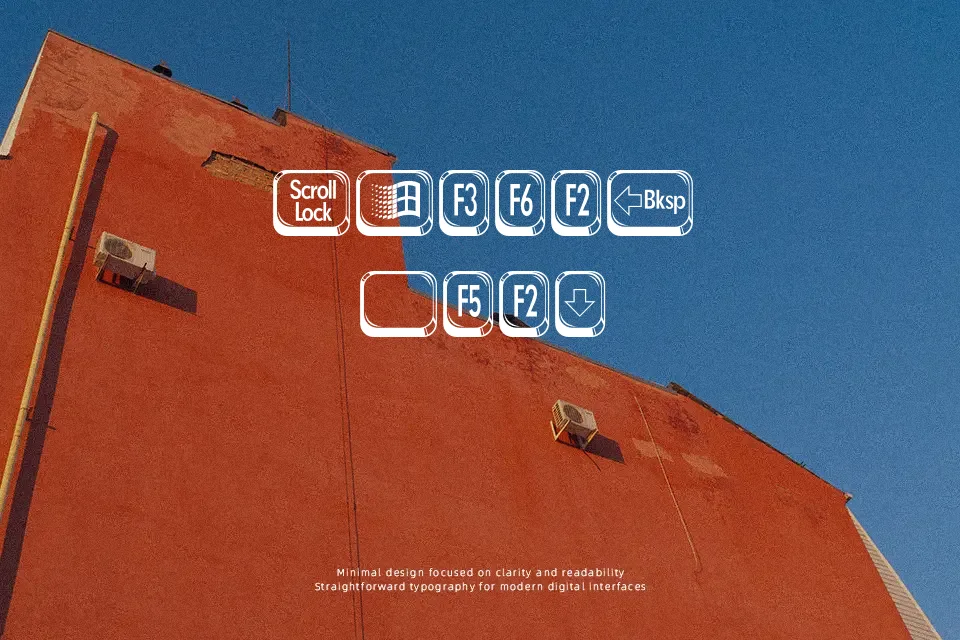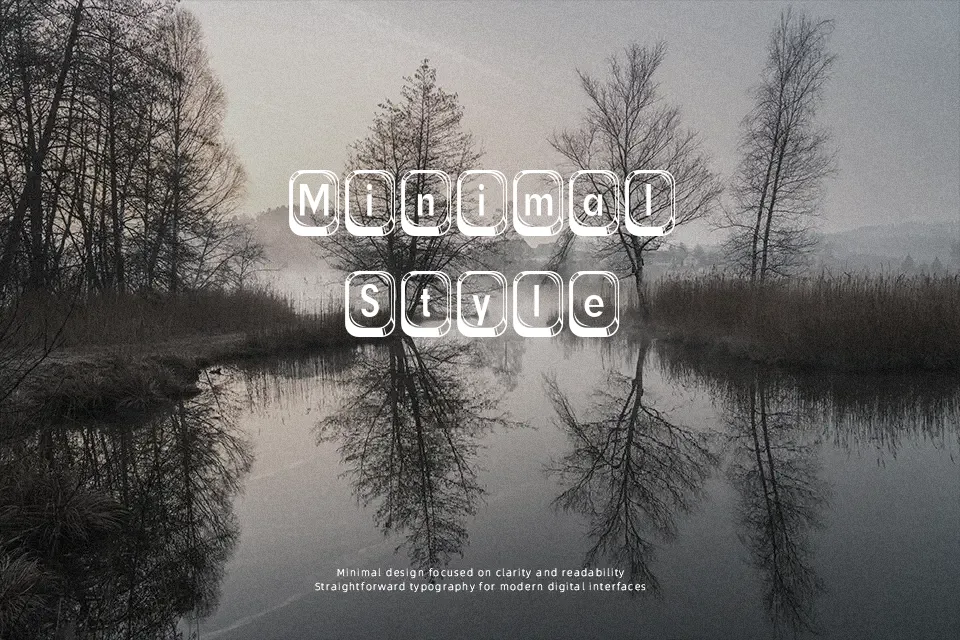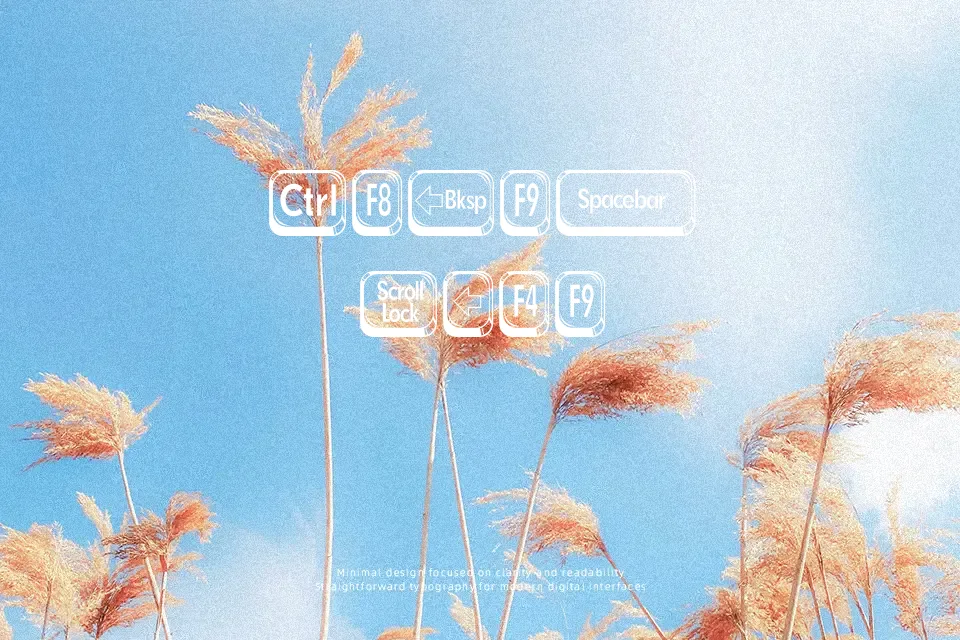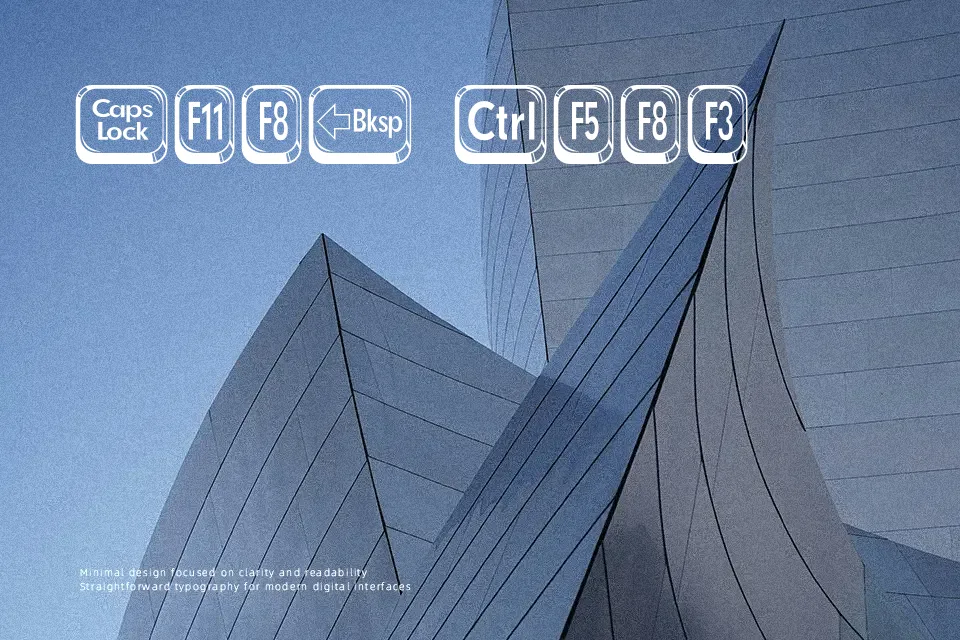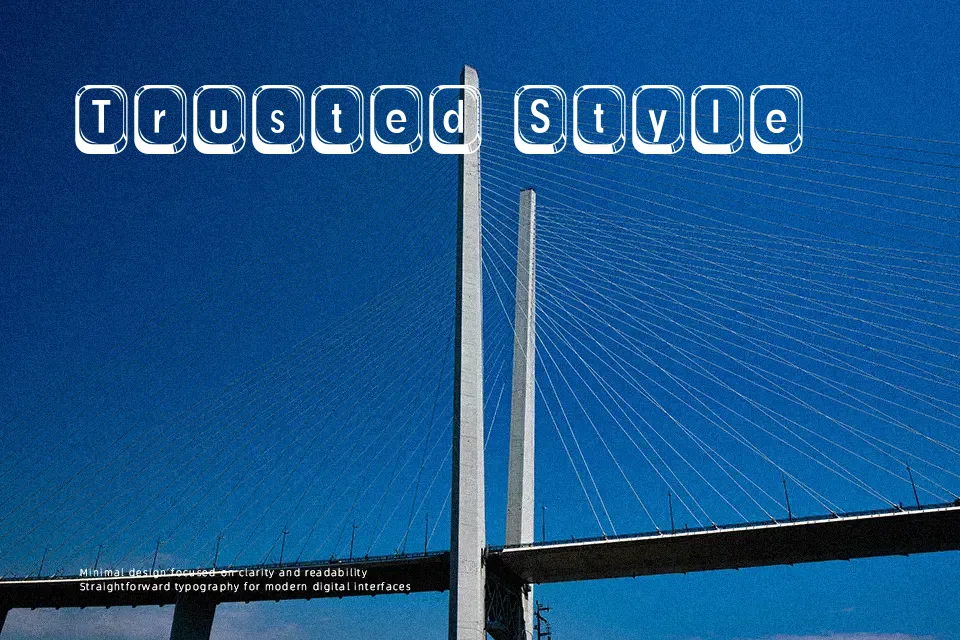
Betsy Flanagan Font
Every glyph in Betsy Flanagan sits inside a rounded, raised keycap shape — the kind you’d find on a vintage mechanical keyboard. Stroke weight is heavy and uniform, with tight internal spacing that reinforces that dense, pressable feel. The second variant, Betsy Flanagan 2, extends the set with control characters like Shift, Enter, and Escape, making the family more complete for illustrative use. It fits naturally in tech product landing pages, keyboard-themed merchandise, or gaming UI headers where novelty is the point. That said, the keycap silhouette overwhelms legibility at small sizes, and it reads as a visual concept rather than a workhorse typeface — sustained body copy is simply not a viable use here. Works best when the font itself is the message.
Best For:- Tech product or mechanical keyboard branding
– Gaming interface headers and loading screens
– Retro-styled poster headlines
– Keyboard-themed merchandise and sticker packs
Not Ideal For:- Long-form body text or editorial copy
– Formal or corporate documents
– Small-size print applications
– Minimalist or luxury branding
Perfect for branding, gaming, and logo, with a bold and decorative style.